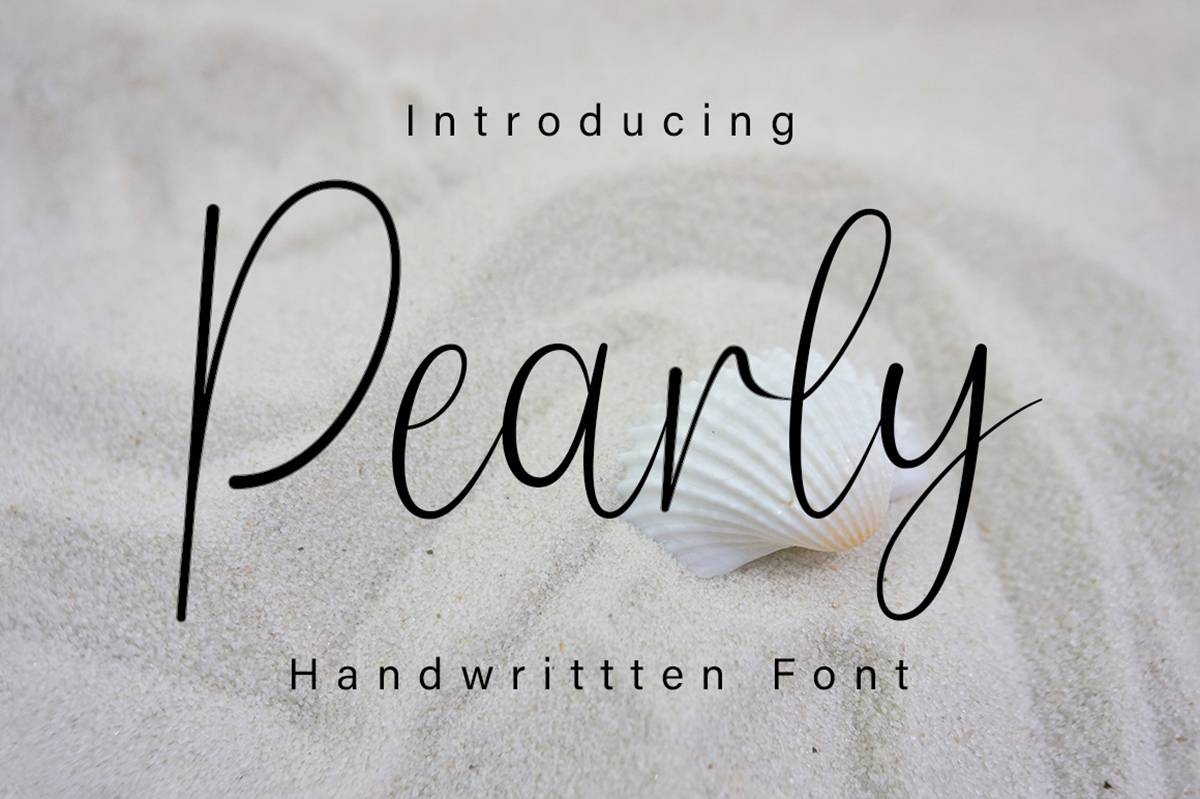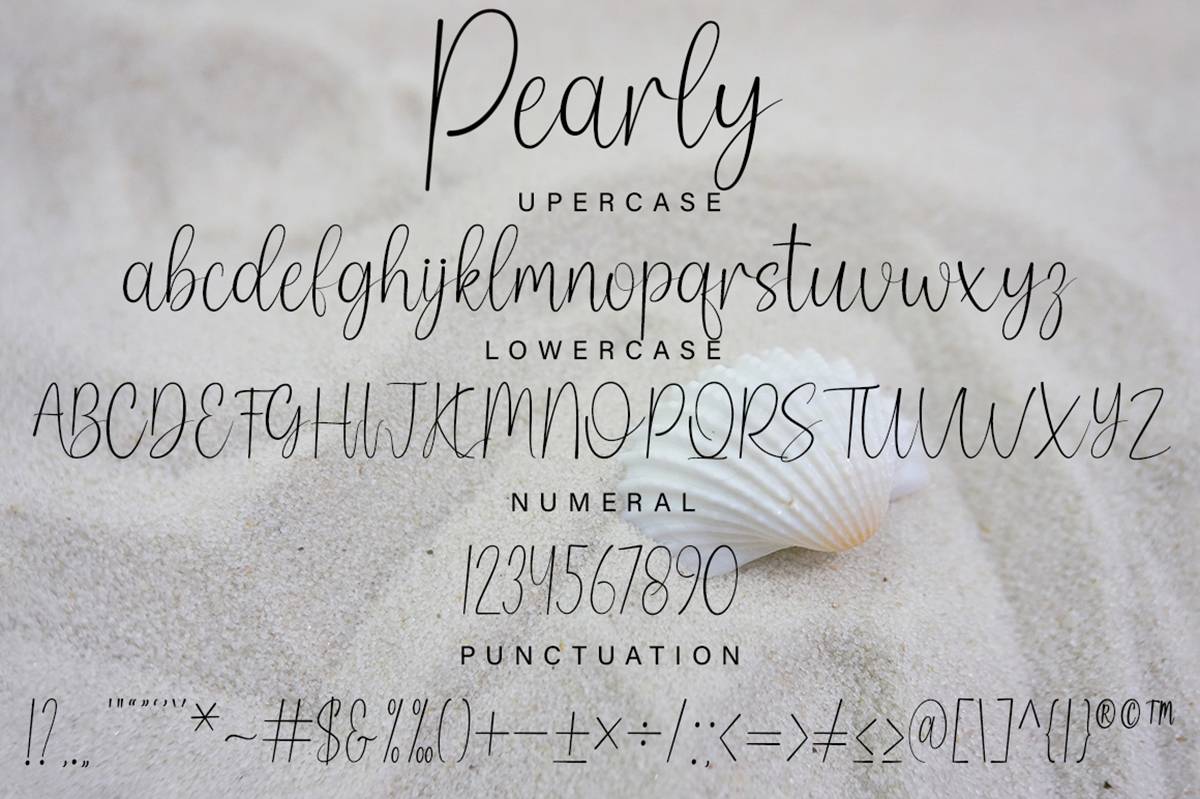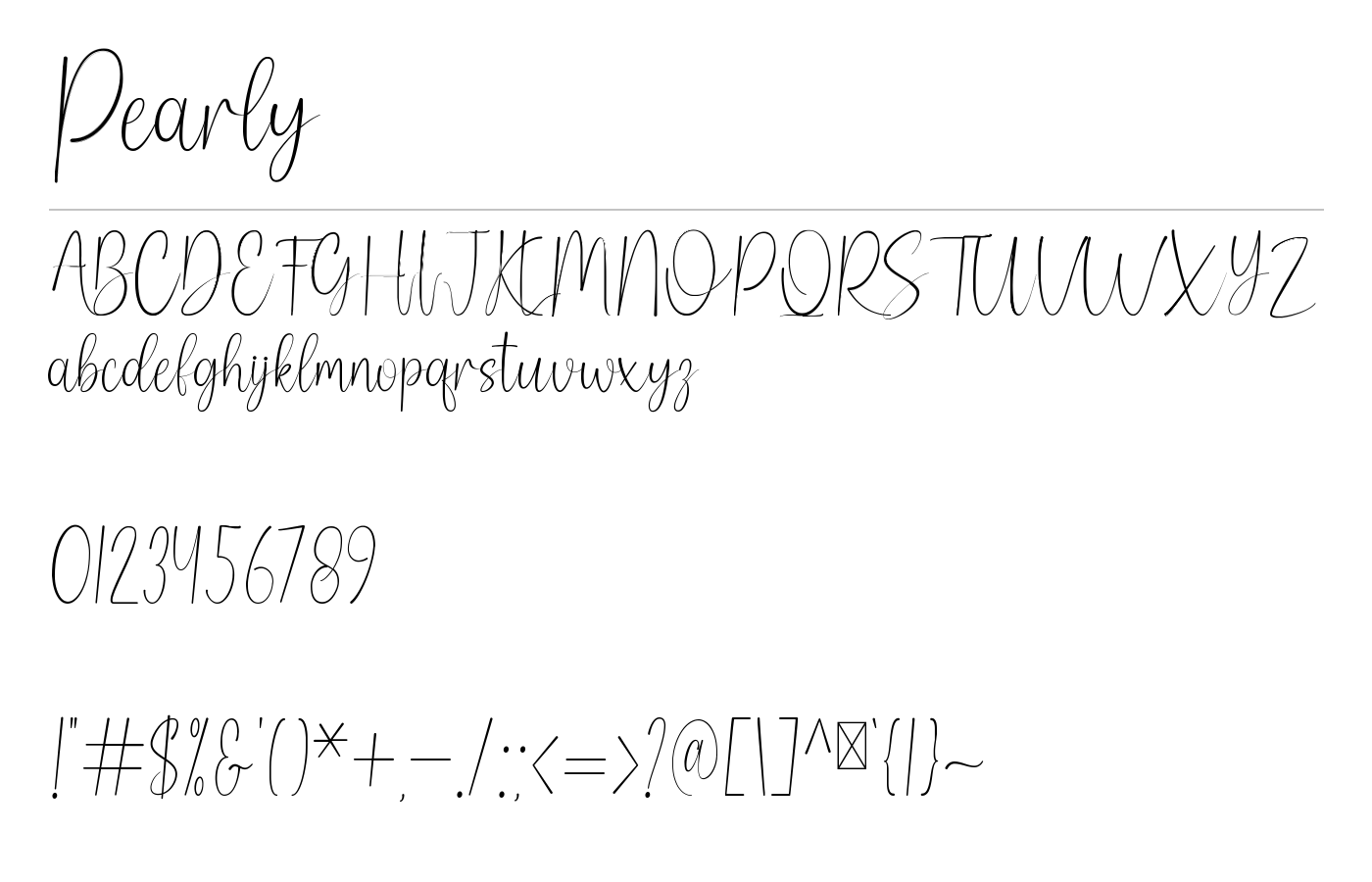
Pearly is a delicate, hand-drawn script font featuring tall, slender letterforms with a light weight and graceful, flowing lines. Its elegant, airy style conveys a modern yet personal touch, making it perfect for invitations, branding, and creative projects that seek a refined, feminine, and approachable feel. This font works best in display uses where its unique charm and subtle sophistication can shine.
Pearly Font
About Pearly Font
| Font family | Pearly Font |
| Designer | Wahyudi |
| Designer link | DN Creative |